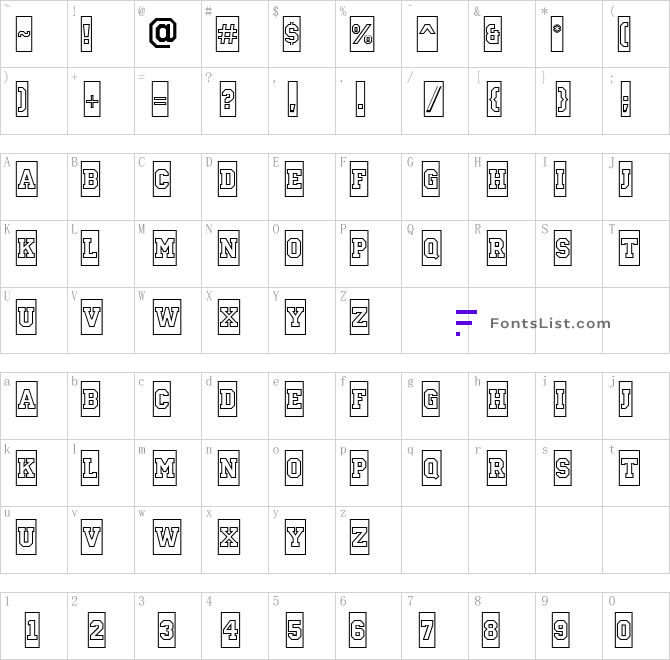
a_CampusCmOtl-Bold-copy-1-.ttf is a very beautiful artistic font, a_CampusCmOtl-Bold-copy-1-.ttf is widely used in the design and printing of various books and pictures,a_CampusCmOtl-Bold-copy-1-.ttf has a strong visual impact,a_CampusCmOtl-Bold-copy-1-.ttf is a commonly used font in newspapers, magazines and books, and is used in posters, e-commerce Poster design, store design, logo design, font design and other fields.a_CampusCmOtl-Bold-copy-1-.